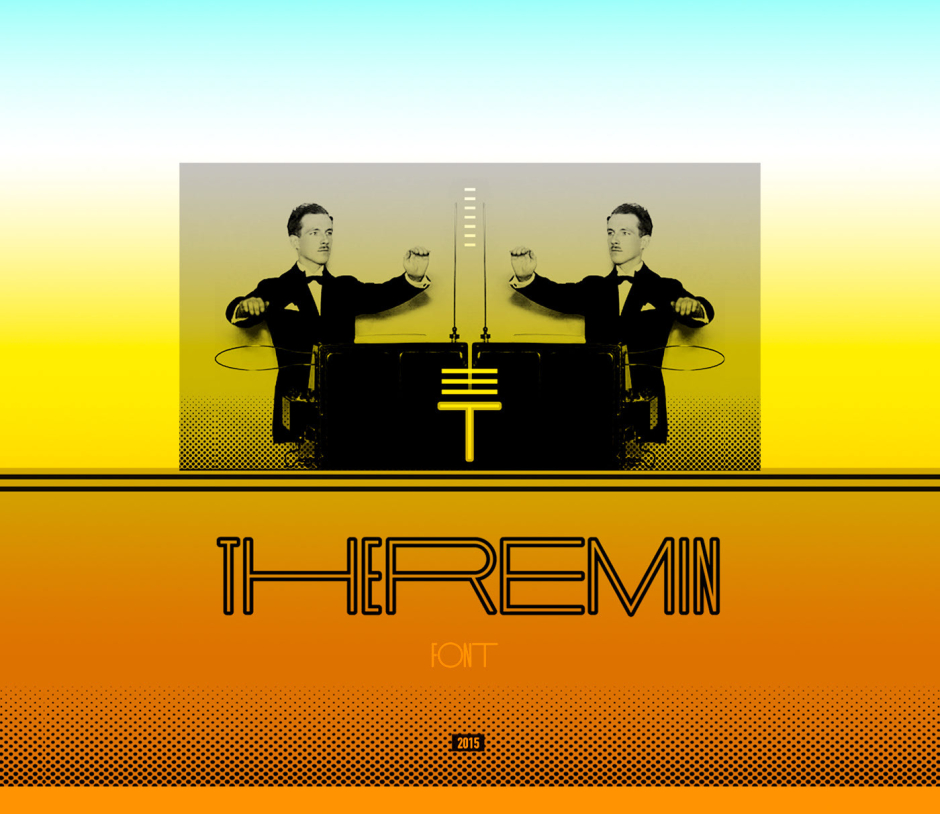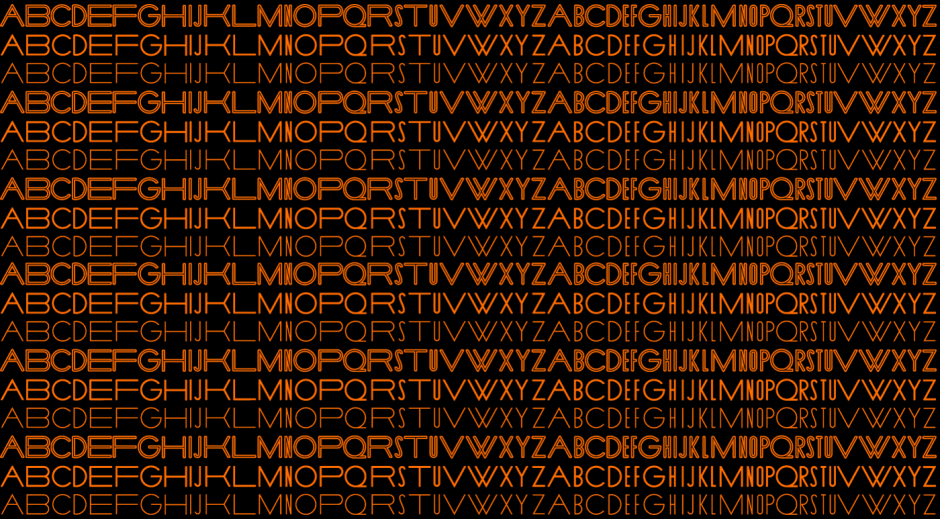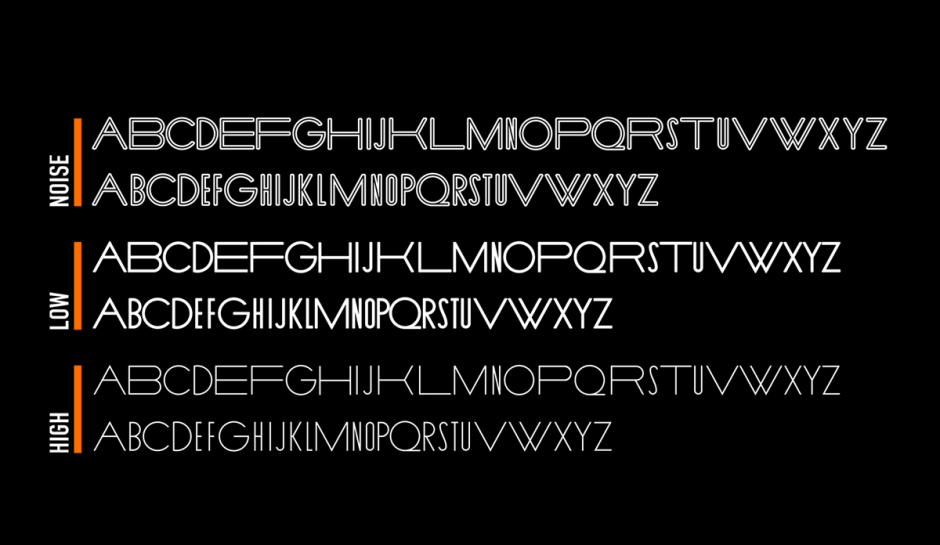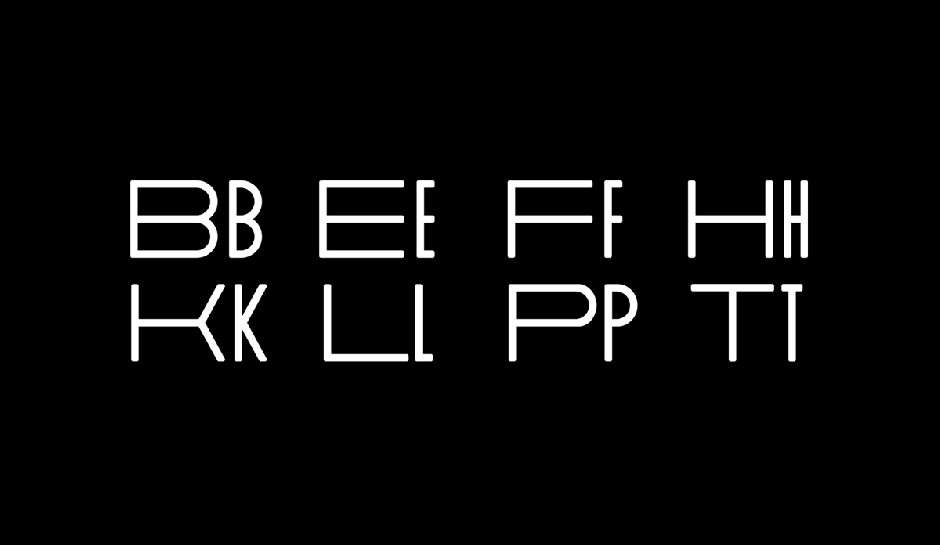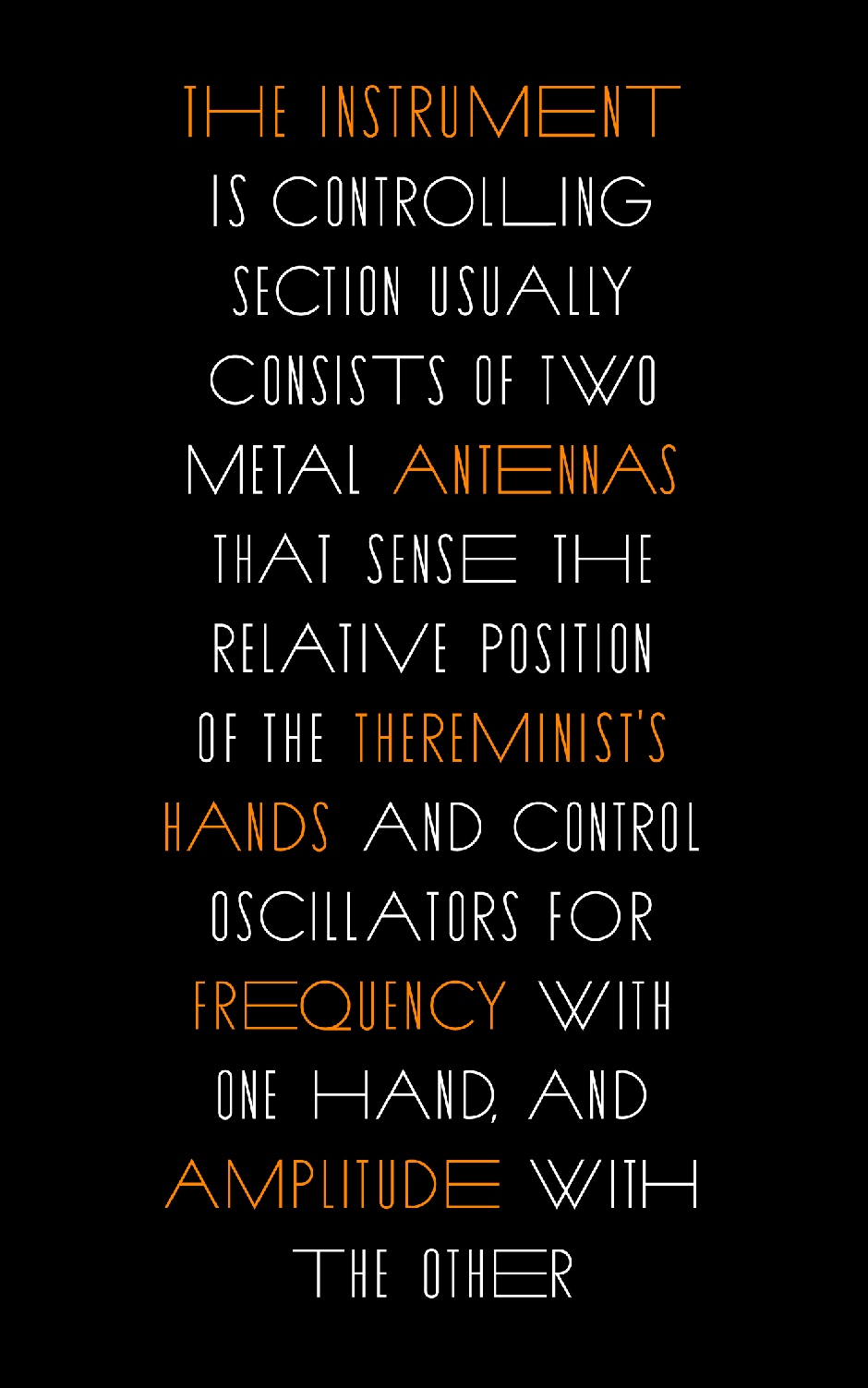
Theremin
/ THEREMIN
THEREMIN
is versatile, experimental and mobile.
The theremin is an early electronic musical instrument controlled without physical contact by the thereminist (performer).
It is named after the Westernized name of its Russian inventor, León Theremin, who patented the device in 1928.
The instrument's controlling section usually consists of two metal antennas that sense the relative position of the thereminist's hands and control oscillators for frequency with one hand, and amplitude (volume) with the other.
The electric signals from the theremin are amplified and sent to a loudspeaker.